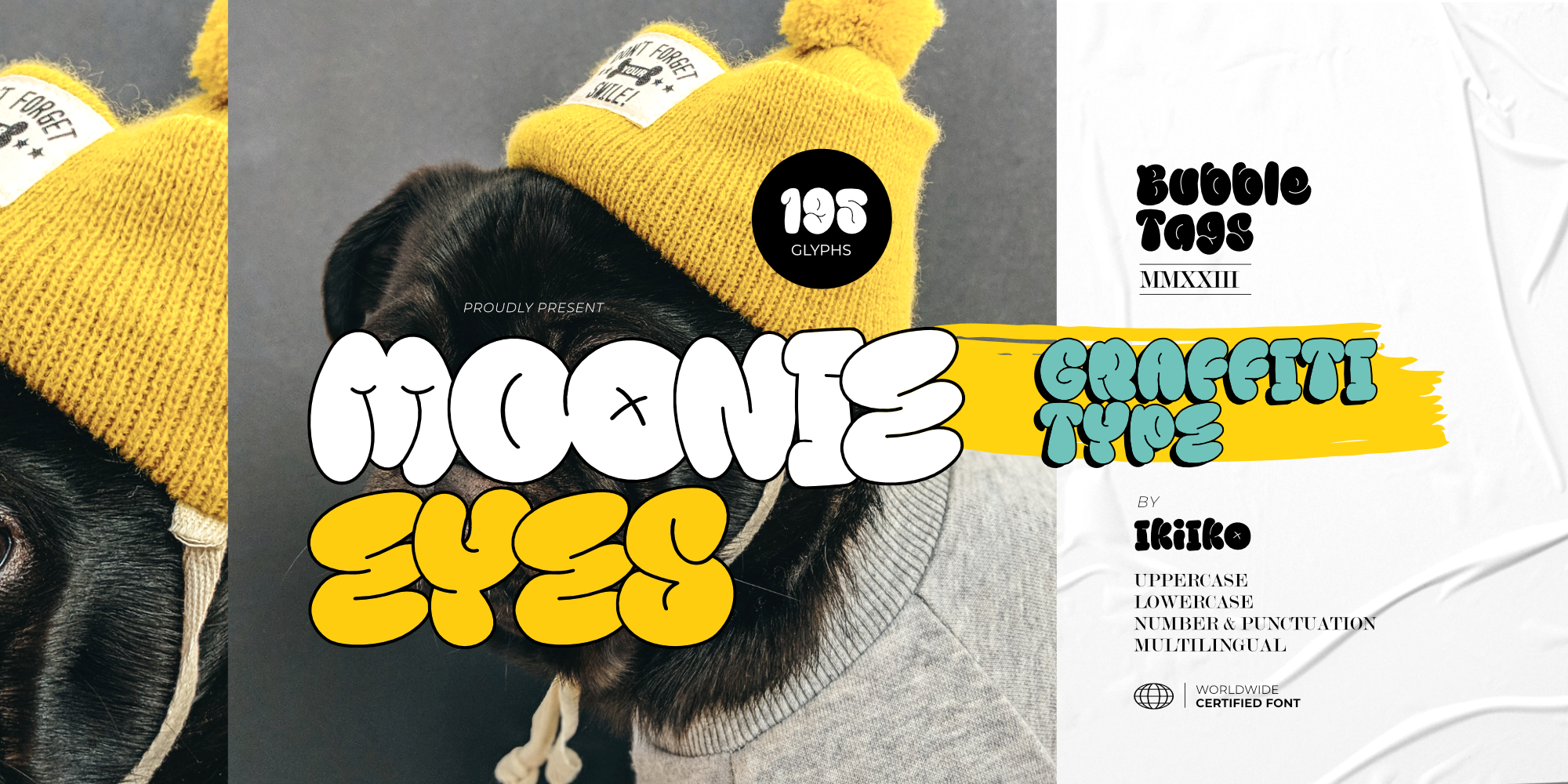
Looking to add a charming, whimsical, and distinctly playful touch to your designs? Moonie Eyes Font Free Download offers a delightful opportunity to explore a typeface brimming with personality. Please remember, however, that while a Moonie Eyes Font Free Download might be available for personal and testing purposes, a commercial license is required for any professional or revenue-generating projects. This is crucial for legal compliance and provides essential support to the talented font designers.
The Moonie Eyes Font is exceptionally well-suited for projects that aim to convey lightheartedness, fantasy, or a sweet, innocent charm. Its often rounded, bubbly, or subtly animated letterforms make it an excellent choice for children's book titles, toy packaging, and animated movie promotions. It's ideal for branding for sweets shops, whimsical cafes, and creative craft businesses where a playful and inviting aesthetic is desired. Furthermore, consider Moonie Eyes Font for greeting cards, personalized gifts, and social media graphics that need to evoke warmth and joy. Its unique character can also bring life to educational materials for young learners and fun event invitations.
What makes the Moonie Eyes Font so exciting is its inherent ability to spark imagination and bring a smile to your audience. It often features quirky details or a gentle, flowing rhythm that sets it apart, giving your text a truly endearing quality. This characteristic allows it to communicate a sense of wonder, friendliness, and heartfelt creativity, making your message resonate with genuine emotion. It’s a font that doesn't just display text; it embodies a playful spirit, adding a layer of whimsical charm and comforting appeal to any creative endeavor. Its distinctive aesthetic ensures your work will stand out with a memorable and lovable presence.
The Moonie Eyes Font family typically focuses on delivering its unique stylistic elements. You'll often find a charming Regular weight, which might be complemented by specific bold variations to enhance its visual impact. Due to its decorative nature, the family might also include unique alternates, ligatures, or decorative elements that allow for highly customized and expressive text compositions, providing additional creative options for crafting truly unique and delightful typographic displays.